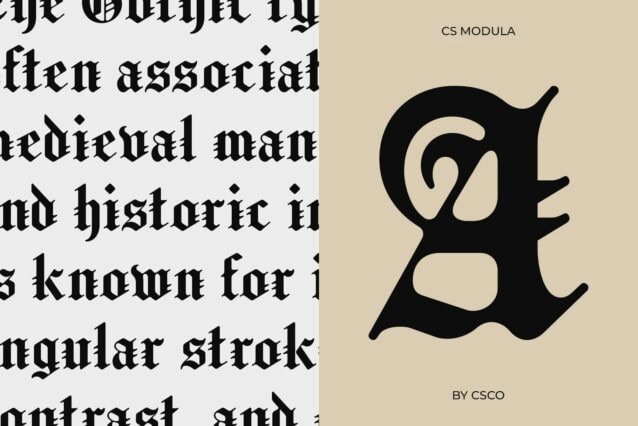
CS Modula Font
CS Modula Font is a bold and decorative typeface inspired by traditional blackletter calligraphy. With its sharp, angular strokes and intricate gothic details, it embodies the essence of medieval typography while maintaining a refined and polished appearance. Designed for those who appreciate the beauty of historical lettering, this font brings a touch of authenticity to any design.